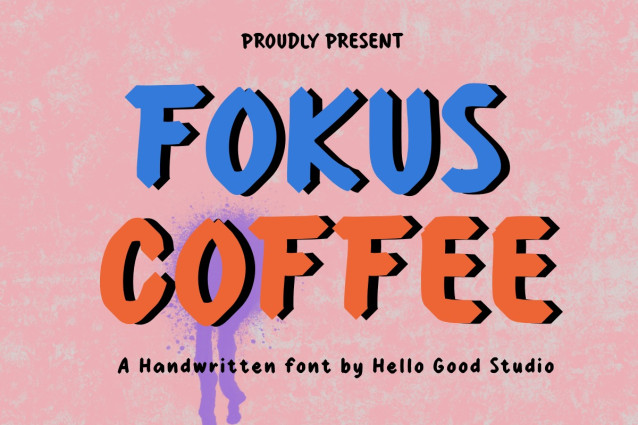
Fokus Coffee Font
Fokus Coffee Font a bold and playful handwritten font crafted by Studio Hello Good. Featuring a unique graffiti-inspired design, this typeface brings a vibrant, energetic, and urban vibe to your creative projects. It is the perfect choice for eye-catching logos, branding, kids’ content, and modern cafe menus.